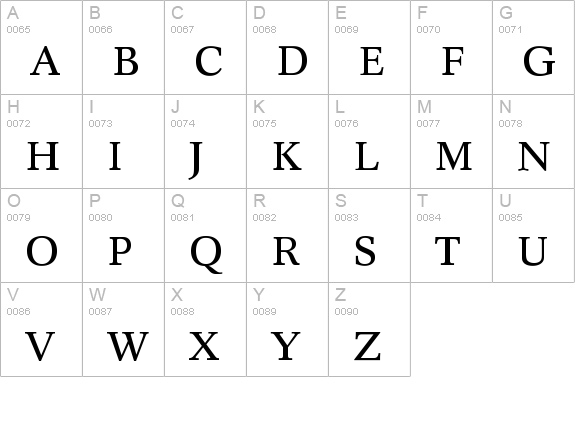
Concorde mit chem Formeln Font Details
Concorde mit chem Formeln font is a modern and sleek typeface that is perfect for scientific documents and technical reports. With its clean lines and sharp angles, this font exudes a sense of professionalism and precision. The unique feature of this font is its integration of chemical formulas, making it ideal for chemistry-related projects. Whether you are a scientist, researcher, or student, Concorde mit chem Formeln font will add a touch of sophistication to your work. Best of all, Concorde mit chem Formeln font is free to download at FontsMarket.com! This means you can easily access this high-quality font without any cost. Enhance your documents with this stylish and functional typeface today by downloading it for free at FontsMarket.com.